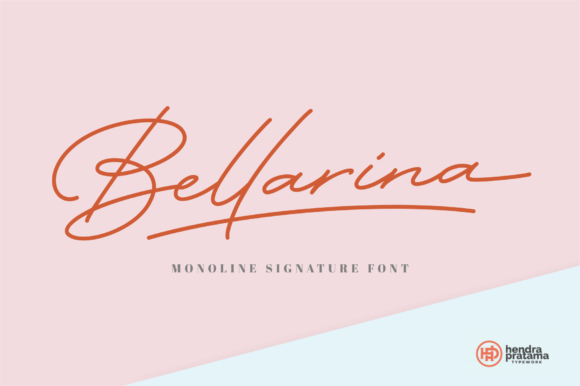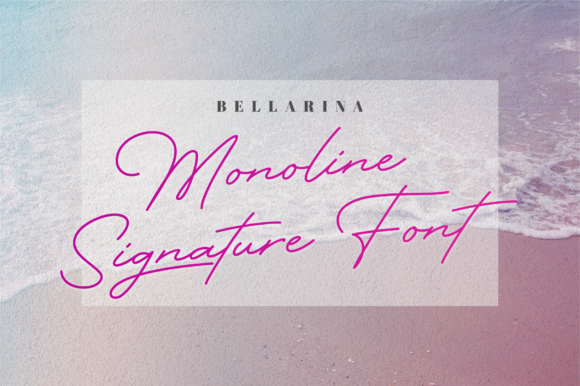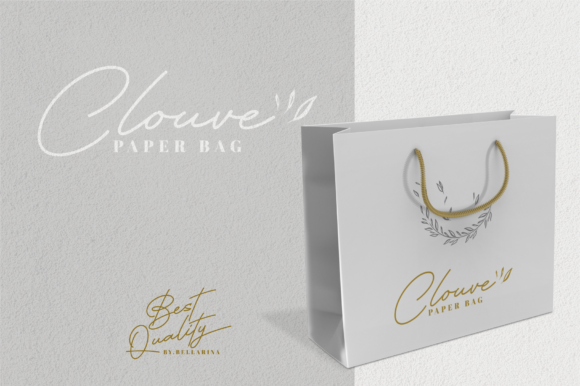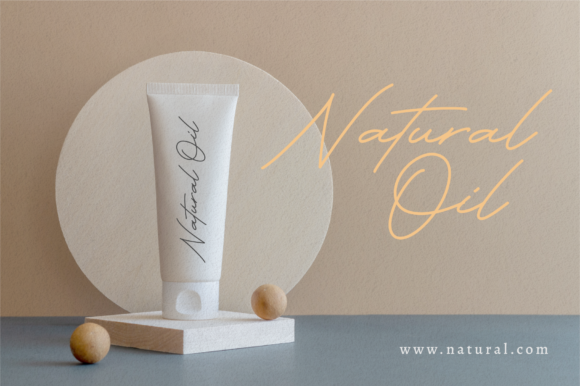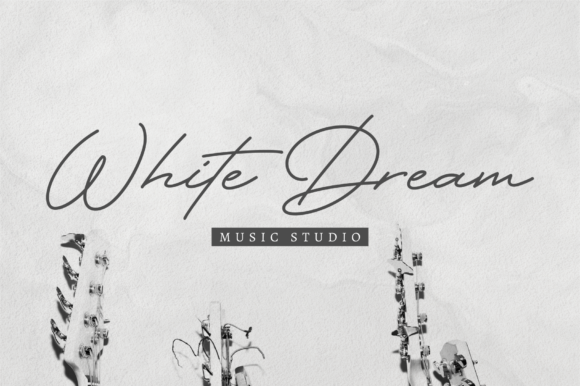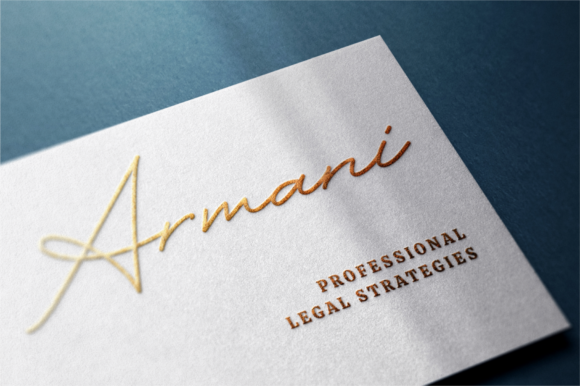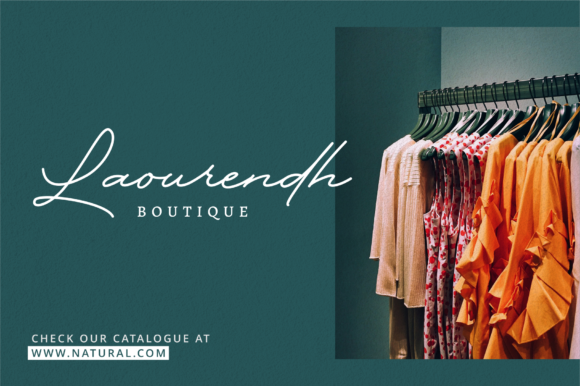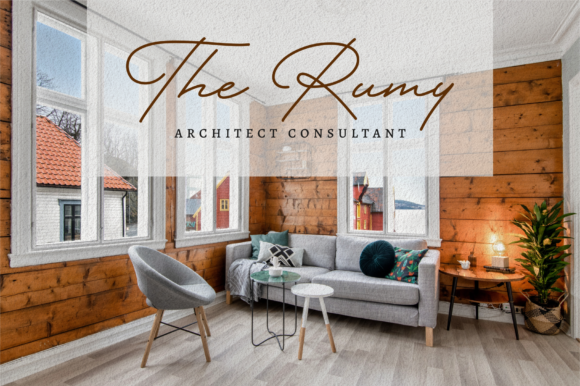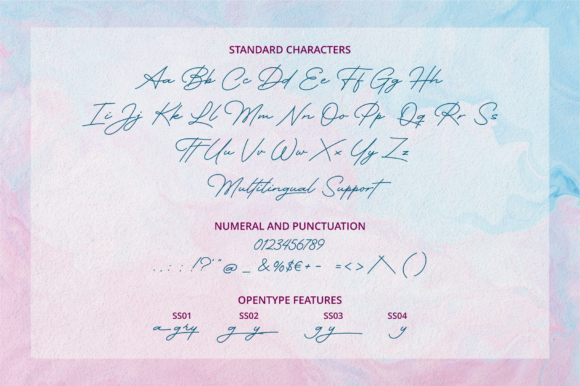
Bellarina is a monoline signature font. Use it to create elegant signatures for your personal or business name cards. It will also look amazing in branding projects, social media posts, magazines, book covers and more!
Bellarina Font